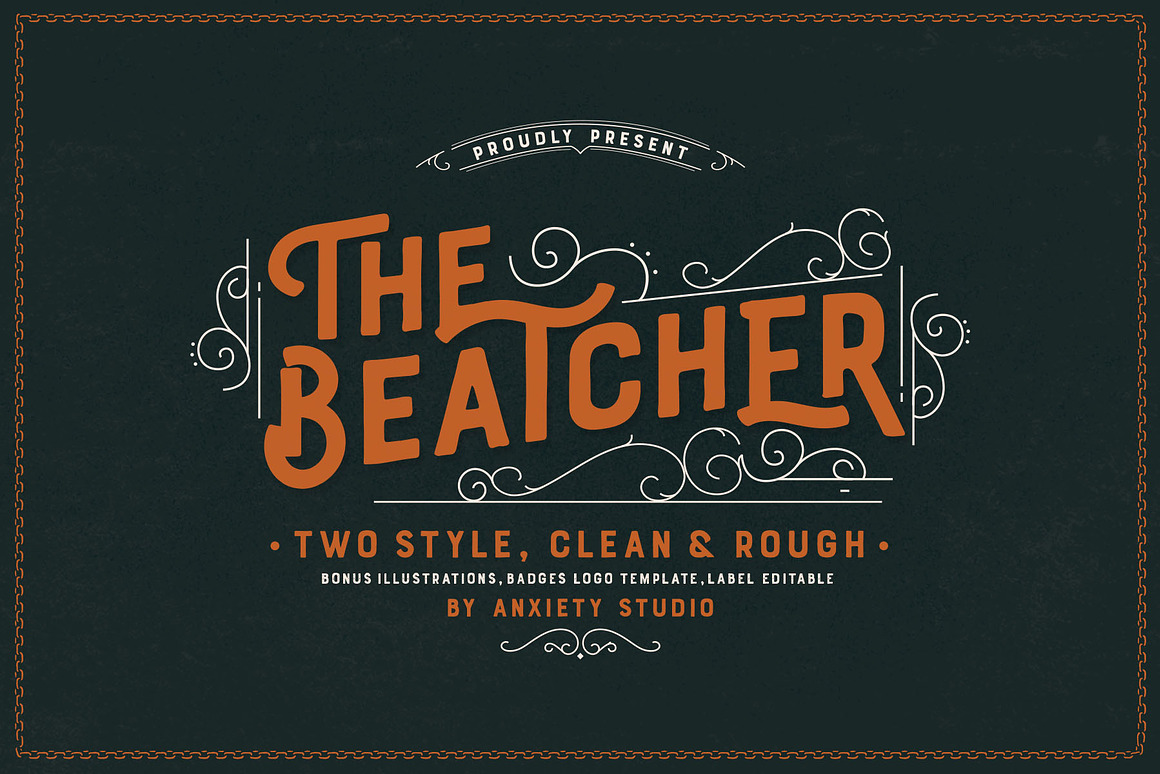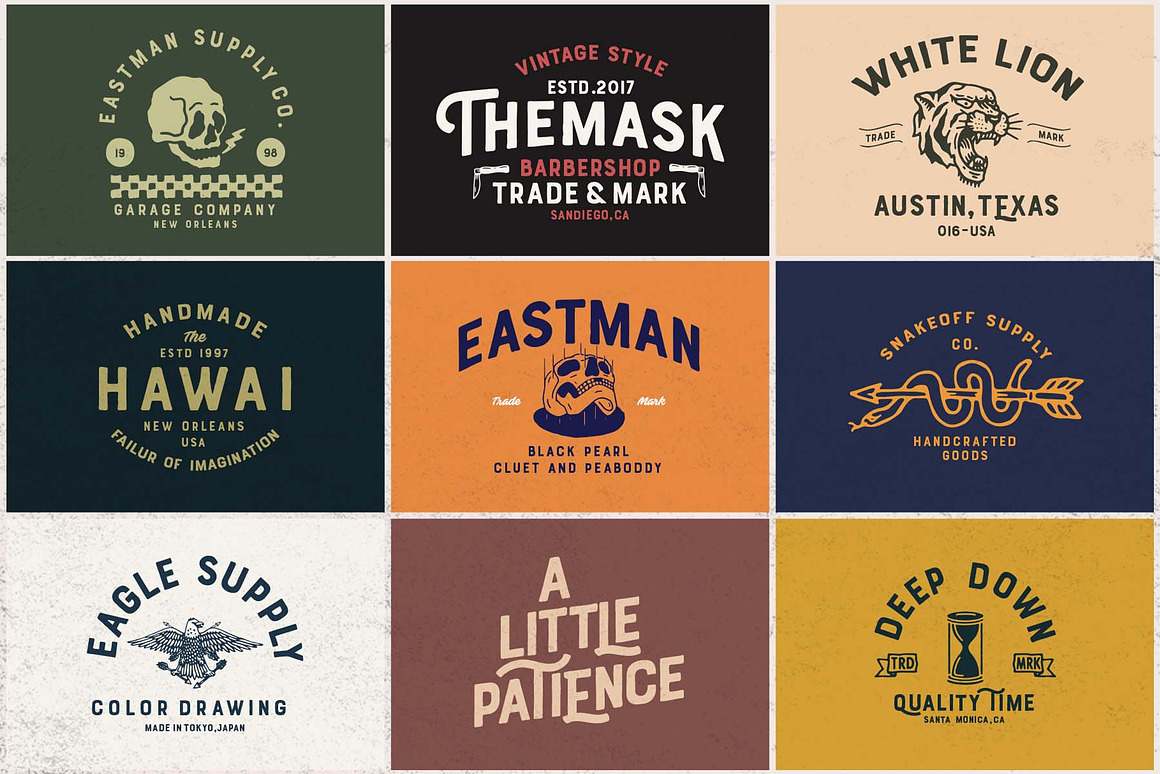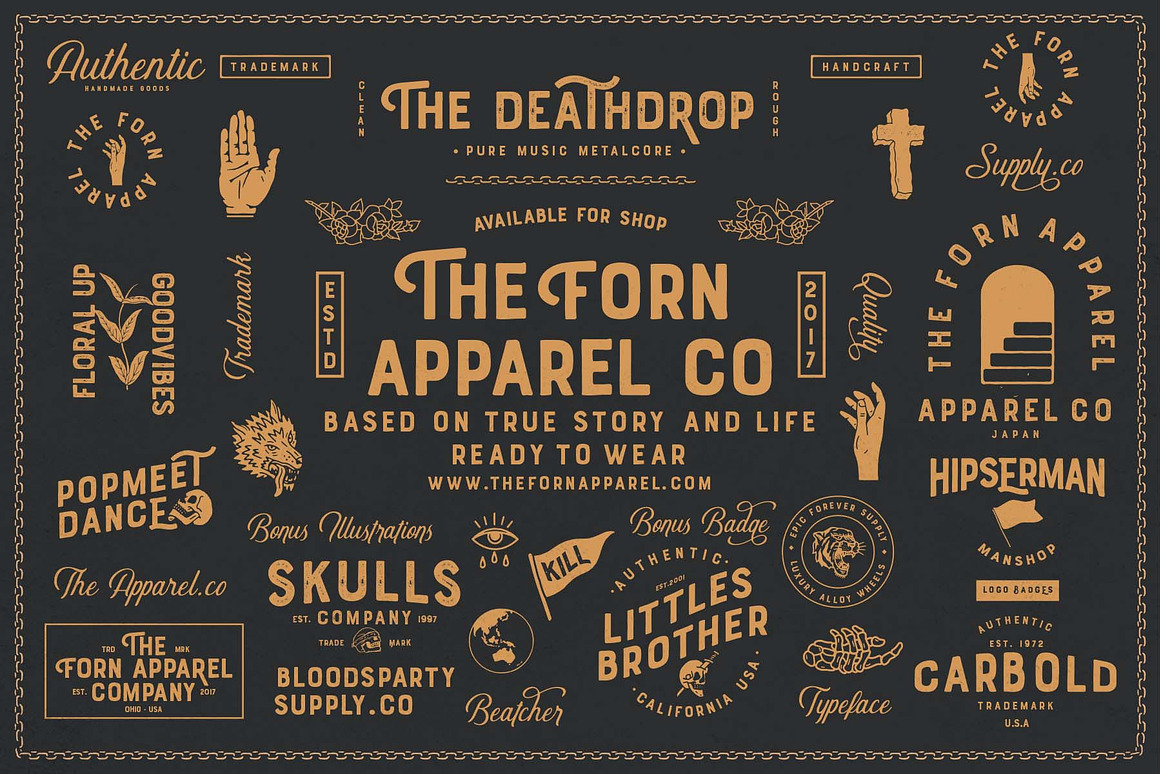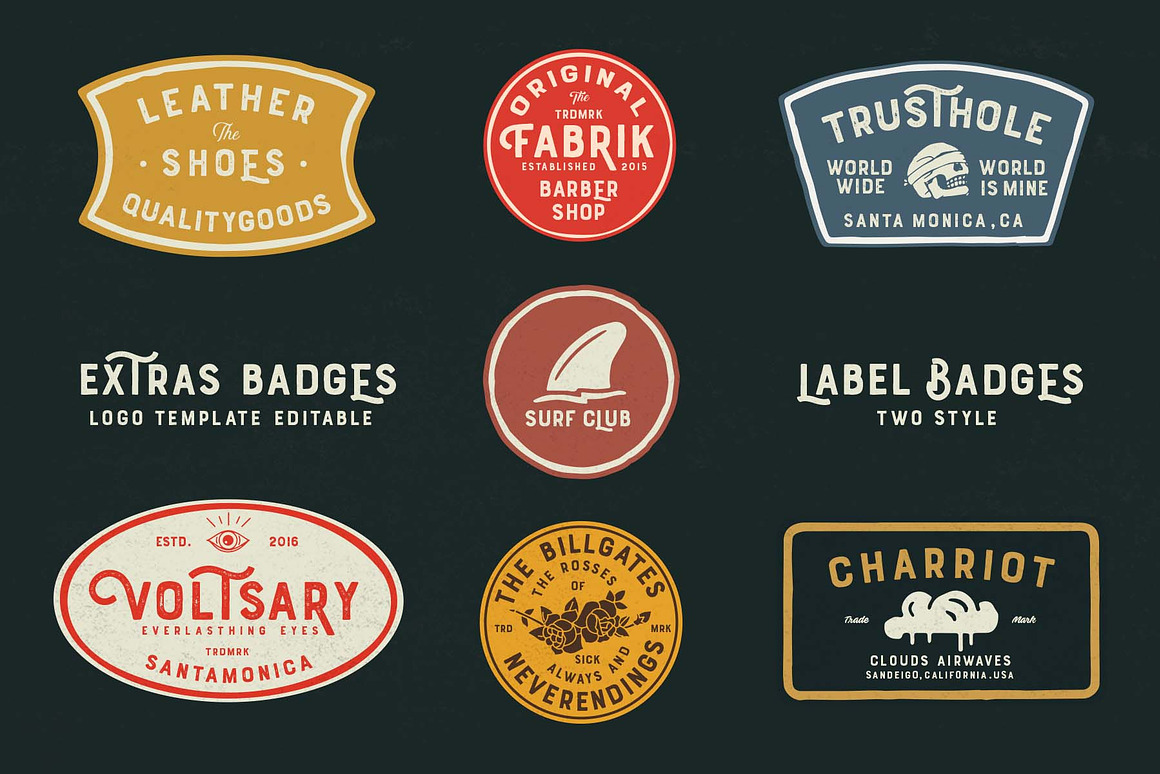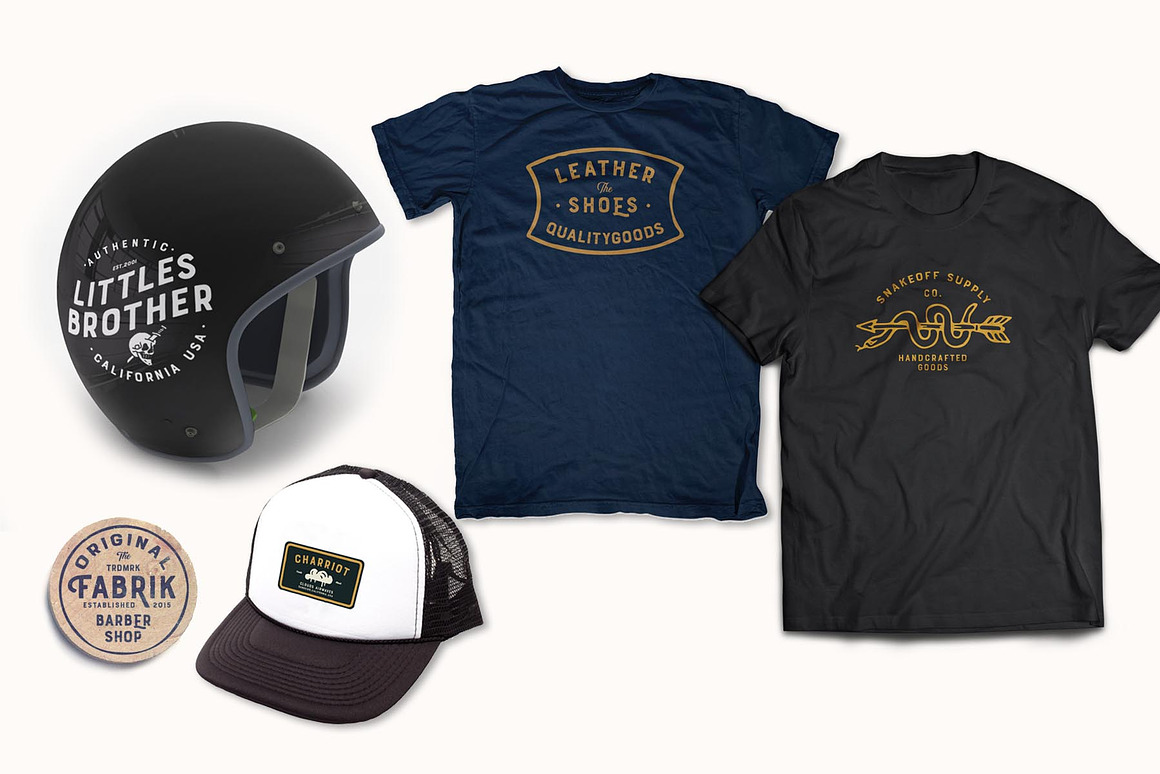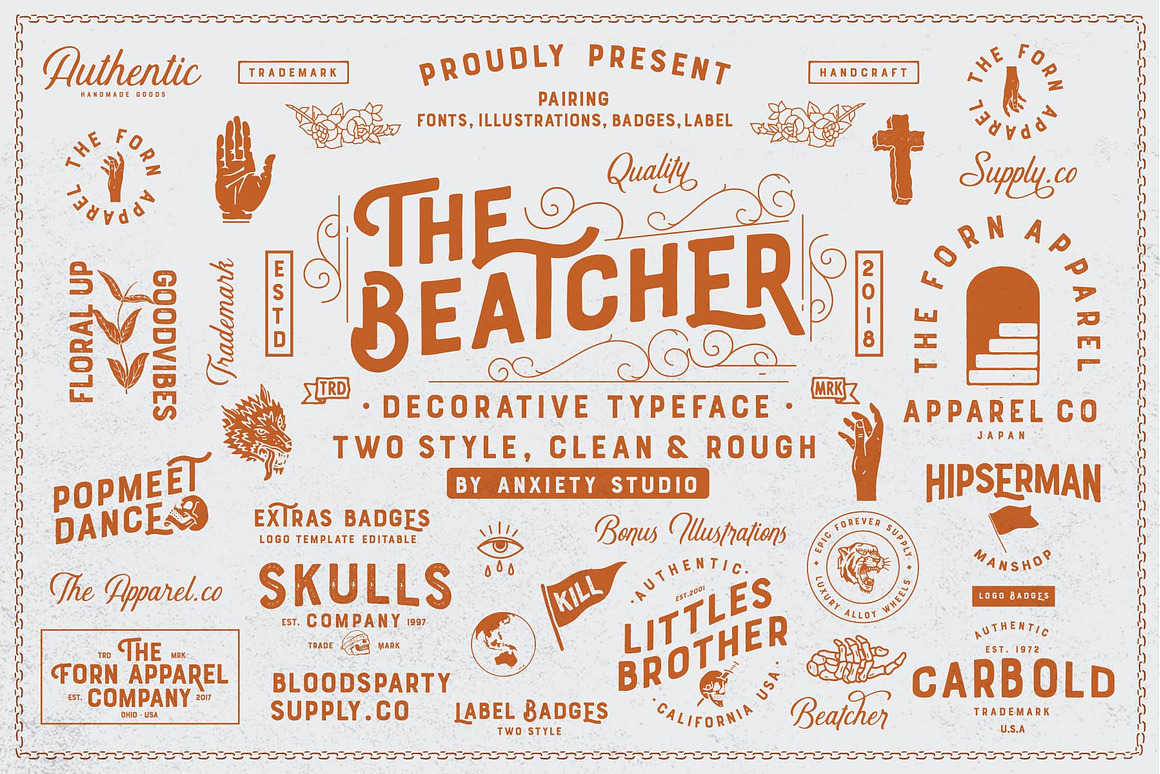
The Beatcher Typeface (Extras)
The Beatcher Typeface is perfect for coastal resort branding, beach club marketing, surf shop signage, tropical vacation campaigns, seaside restaurant menus, marine lifestyle brands, nautical advertising, ocean adventure tours, beachfront property marketing, and authentic coastal design projects.
What makes The Beatcher Typeface exciting is its coastal freedom that captures the endless horizon of ocean adventures and beachside relaxation through freely crafted letterforms. This breezy typeface combines maritime charm with laid-back sophistication, creating a personality that communicates freedom, adventure, and genuine coastal lifestyle. The font's beach-inspired character and oceanic appeal make it perfect for brands seeking to evoke the refreshing atmosphere of sandy beaches and the carefree spirit of coastal living experiences.
The Beatcher Typeface family includes Regular, Bold, Light, Medium, Coastal, Surf, Condensed, and Wave variants. Each weight maintains the font's beachy character while providing comprehensive typographic flexibility for coastal brand identity systems and marine design applications across diverse beach lifestyle platforms.
Whether you're developing beach resort identities, creating coastal marketing materials, designing surf shop branding, or building tropical tourism campaigns, The Beatcher Typeface delivers unmatched coastal appeal and beachside sophistication. Its relaxed presence makes it perfect for beach resorts, surf brands, coastal restaurants, and marine lifestyle companies seeking authentic beach representation.
The font's flowing proportions and oceanic details create a refreshing reading experience that transports audiences to pristine sandy beaches and endless ocean horizons. Each letterform has been carefully crafted to evoke gentle sea breezes and coastal freedom while maintaining excellent readability across modern beach lifestyle applications.
This versatile typeface excels in coastal environments, offering designers the freedom needed for comprehensive beach brand communication strategies. The extensive character set includes coastal alternates, marine ligatures, and oceanic symbols for beach lifestyle market positioning and coastal brand storytelling.
Embrace the power of coastal design that celebrates beach culture and authentic marine lifestyle experiences.